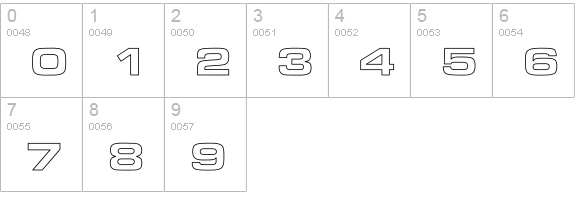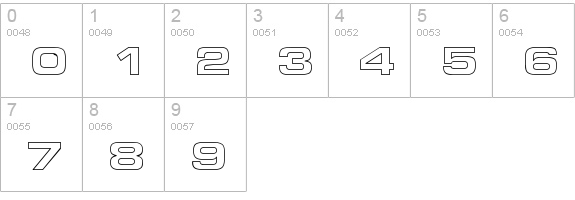
Aero Extended Hollow Font Details
Aero Extended Hollow is a distinctive, extended-width variant in the Aero typeface family \xE2\x80\x94 well suited to design and typography projects.
Aero Extended Hollow is a sleek and modern typeface that exudes sophistication and elegance. The extended letterforms and hollow design give this font a unique and futuristic feel, making it perfect for a variety of design projects. With its clean lines and stylish appearance, Aero Extended Hollow is sure to make a statement and capture the attention of viewers. What's more, this stunning font is available for free download at FontsMarket.com. Whether you're working on a branding project, creating eye-catching posters, or designing a sleek website, Aero Extended Hollow is a versatile font that will elevate your designs to the next level. Download it today and unleash your creativity with this exceptional typeface.